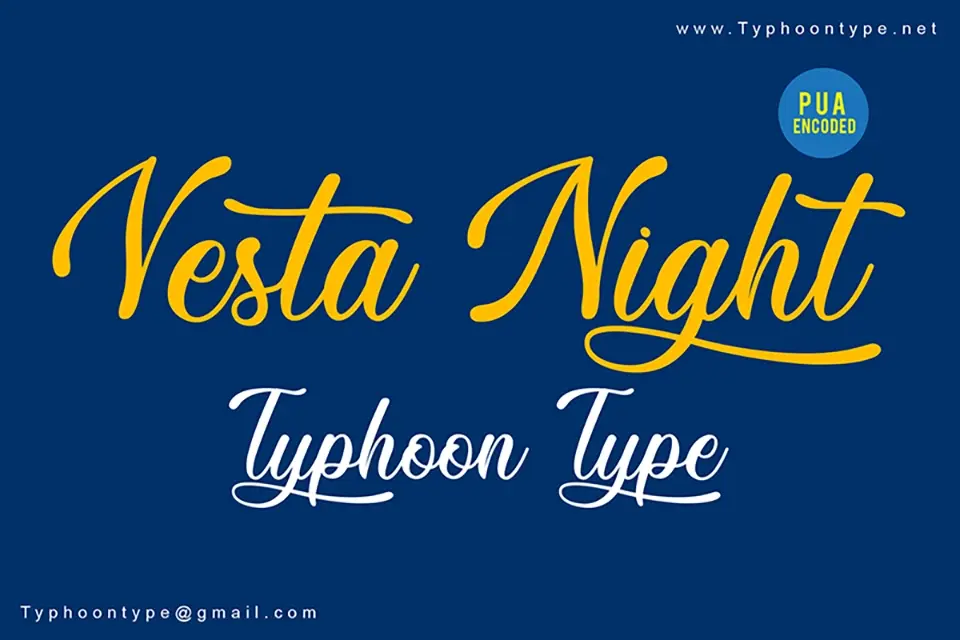
Vesta Night Font
Vesta Night is an elegant script font featuring flowing, cursive letterforms with graceful swashes and decorative elements. Designed with smooth, connected characters and PUA encoding for extensive alternate glyphs and ligatures, this gorgeous script typeface excels at creating sophisticated and refined typography for creative projects. Perfect for wedding invitations, branding, elegant designs, and decorative applications that demand a touch of classic sophistication and artistic flair.